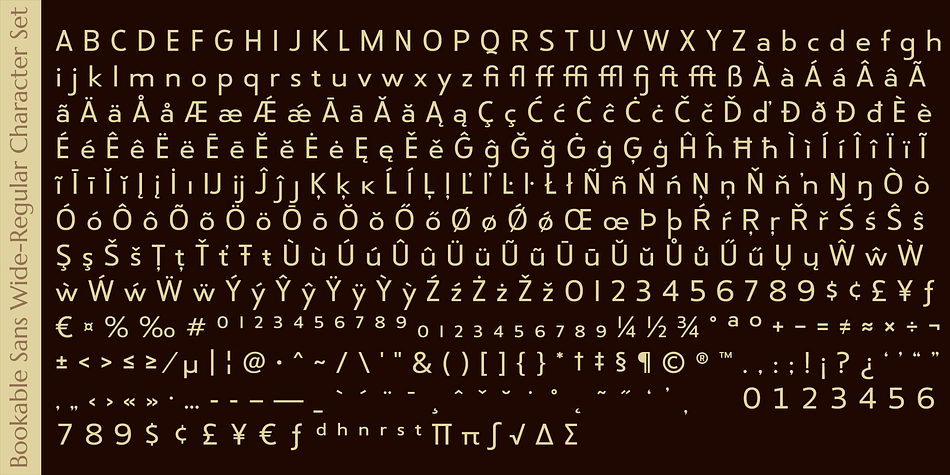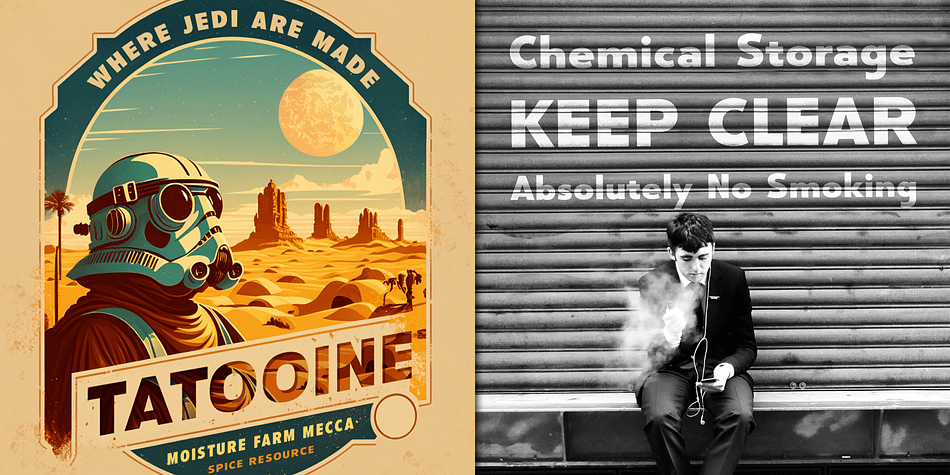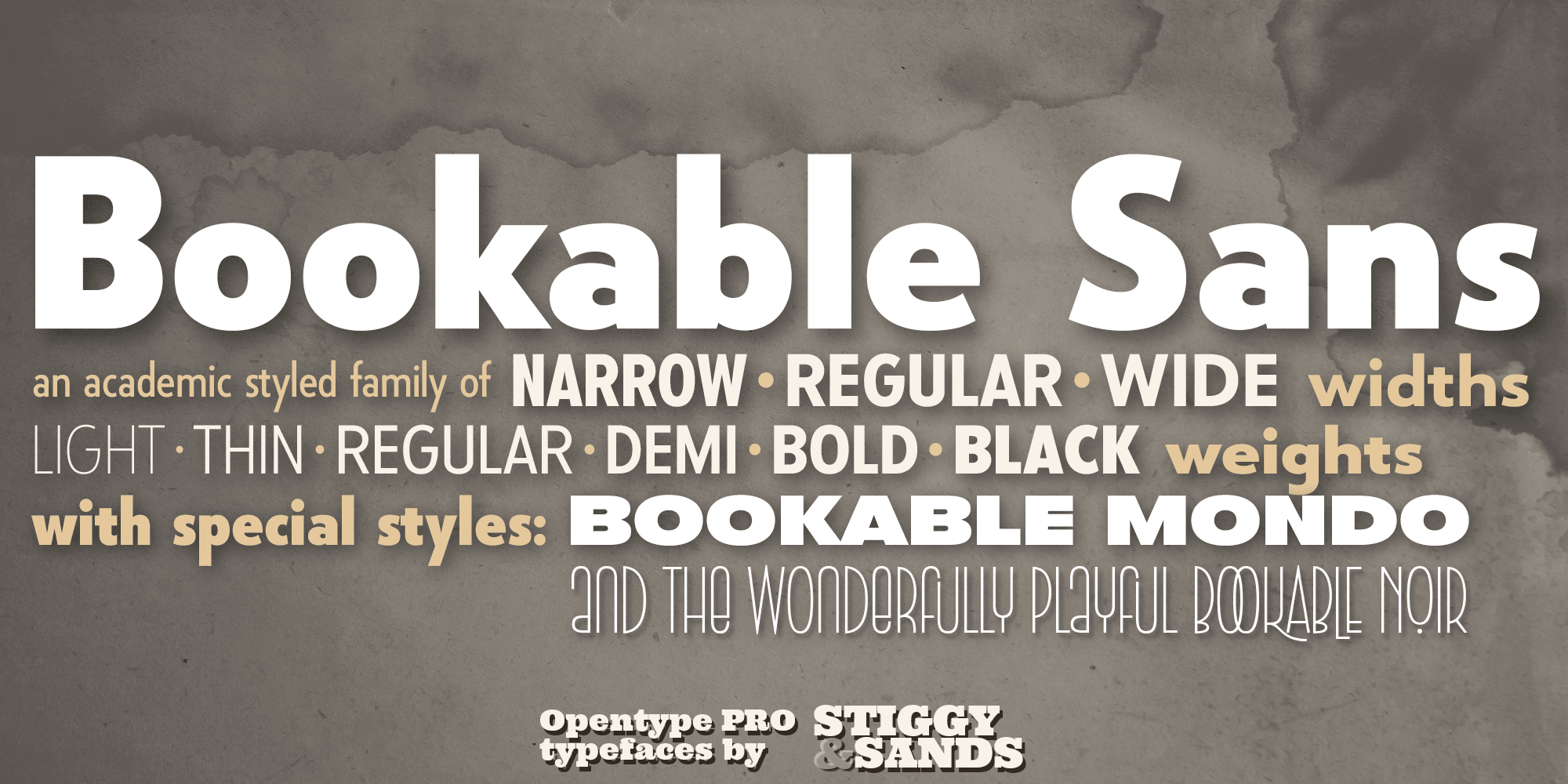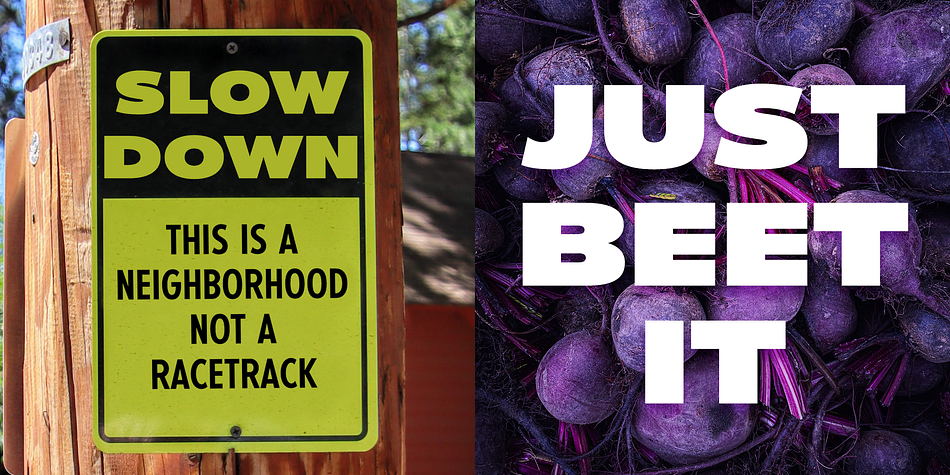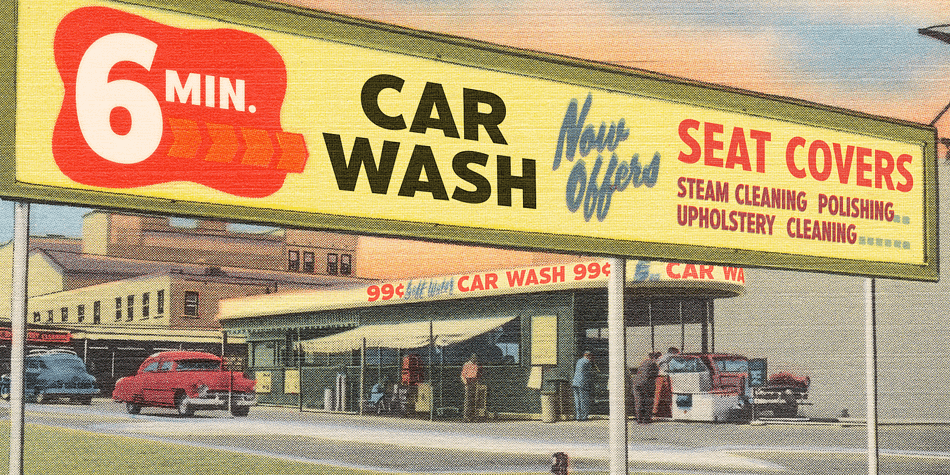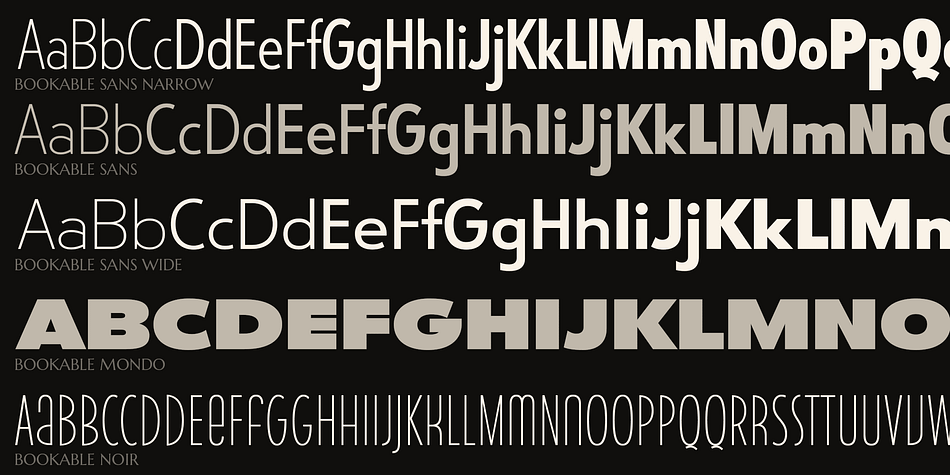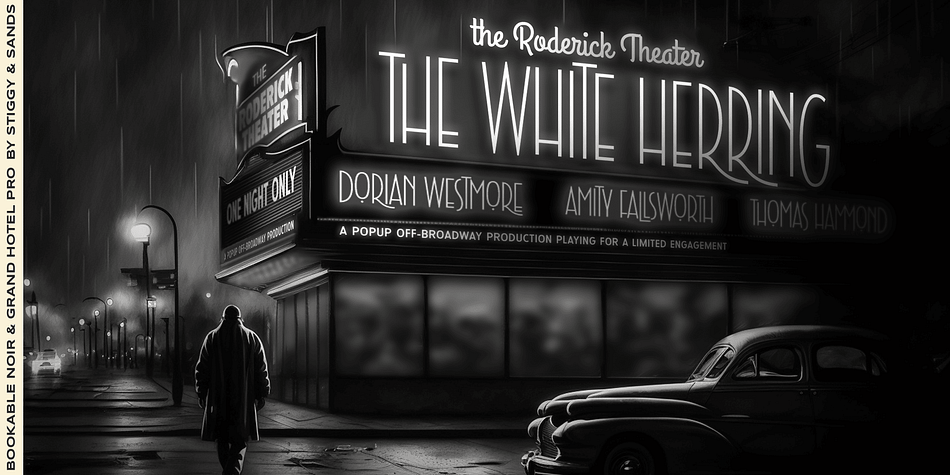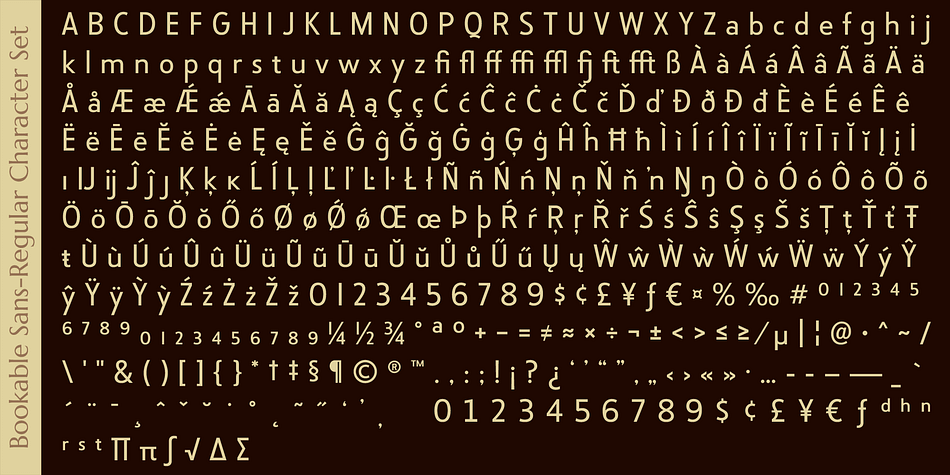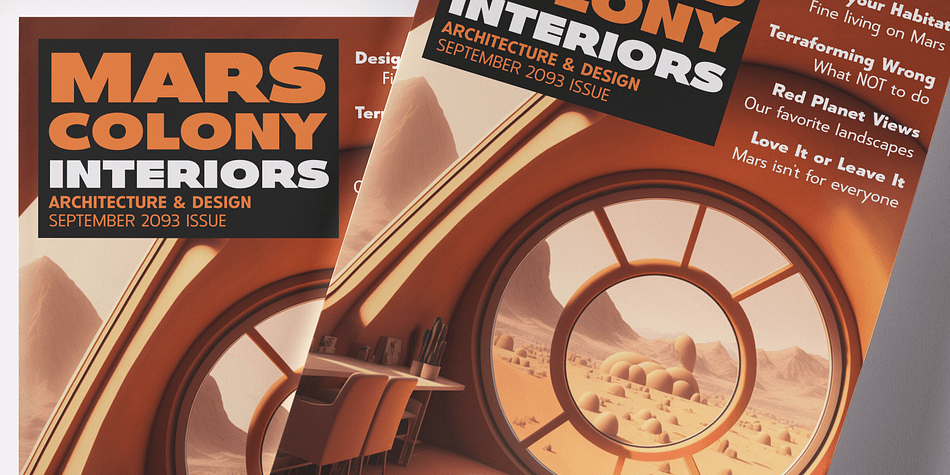
Bookable Sans
Designed by Jim Lyles and Brian J. Bonislawsky, Bookable Sans is a display sans, hand display and sans serif font family. This typeface has twenty styles and was published by Stiggy & Sands.
A Sans Serif Family with a few unique relatives
Our Bookable Sans Family was inspired by a lettering specimen from “Letters and Lettering” by Carlyle & Oring, but you’ll find the inspiration has come a long way, baby. From its original reference of displaying a standard width and weight, to the two words showing a light narrow and a heavy wide, this friendly utilitarian display text face has grown to include three width families, with six weights from light to black each. The outliers of the family are Bookable Mondo: an uber heavyweight wide style exuding all brute power in an all-caps form, and Bookable Noir: a lightweight and narrow style with many unique alternate letterforms and ligatures that spoof film noir titling, but also goes off the rails having fun.
Opentype features for the traditional families include:
- Full set of Inferiors and Superiors for limitless fractions.
- A small collection of f-based Ligatures.
- Tabular & Proportional figure sets.
- Ordinals.
- Approx. 419 characters.
Opentype features for Bookable Mondo include:
- Full set of Inferiors and Superiors for limitless fractions.
- Ordinals.
- Approx. 391 characters.
Opentype features for Bookable Noir include:
- Full set of Inferiors and Superiors for limitless fractions.
- Five Stylistic Alternate Sets.
- Sixty-six unique ligatures.
- Ordinals.
- Approx. 701 characters.